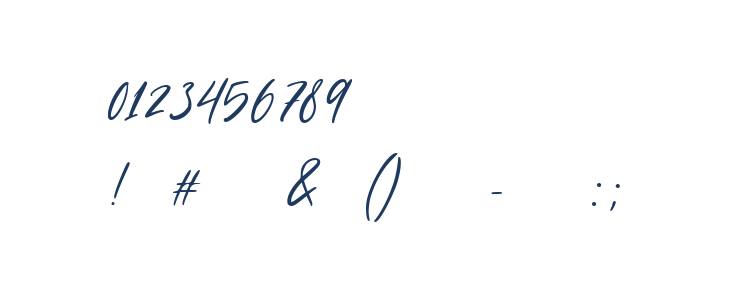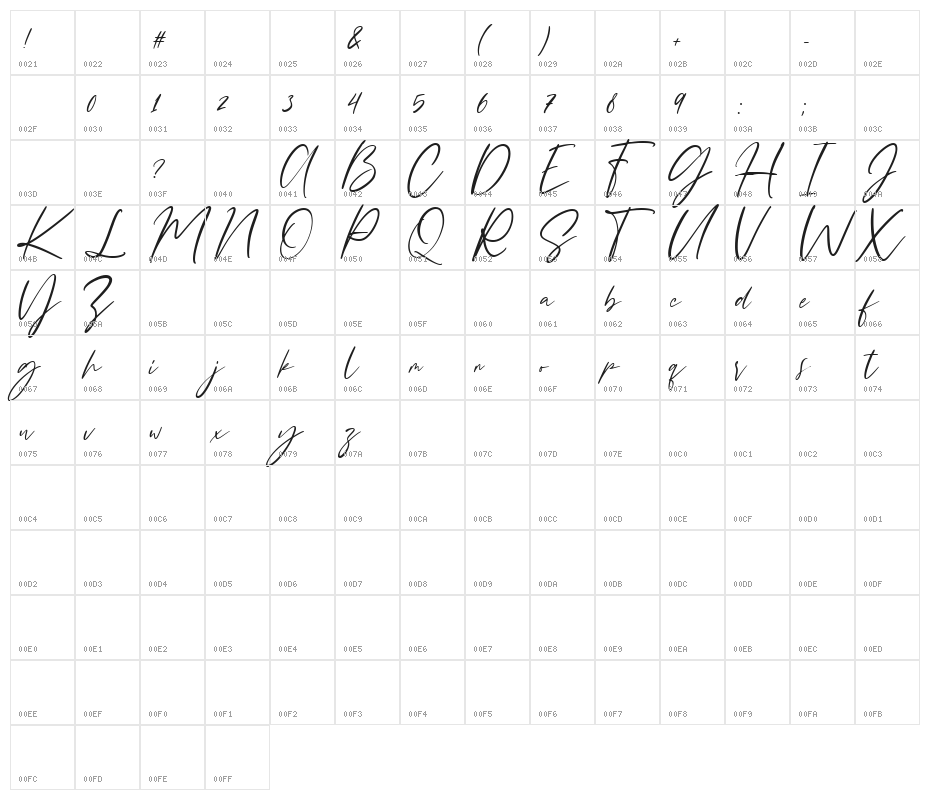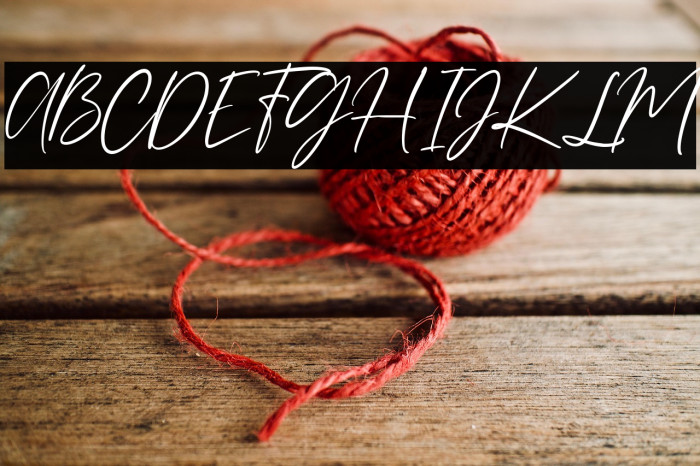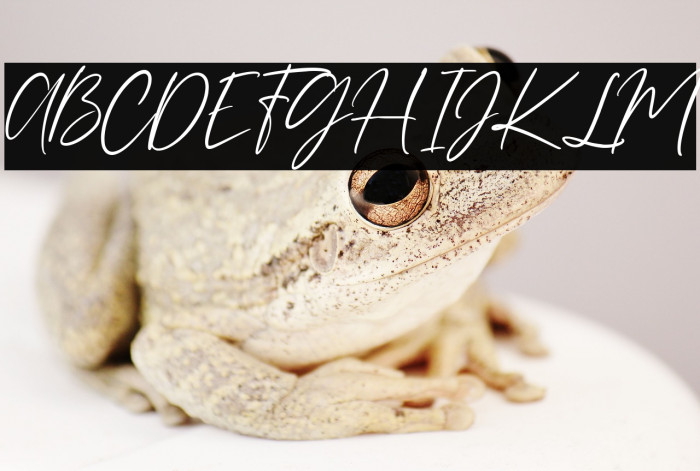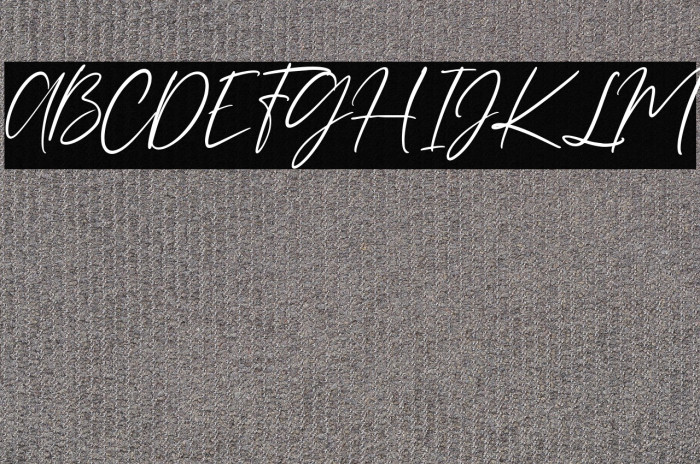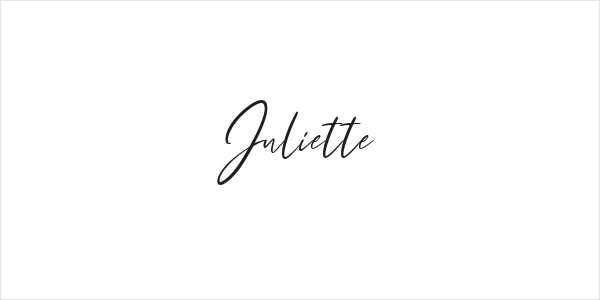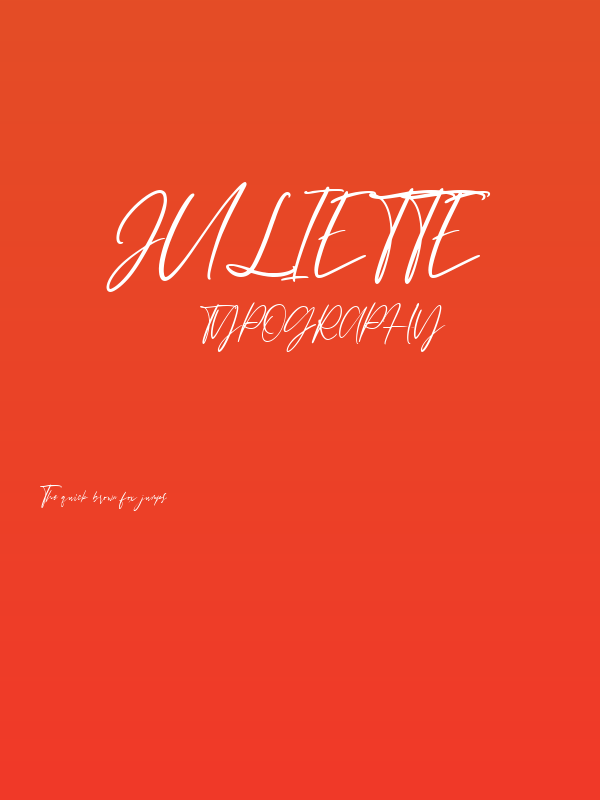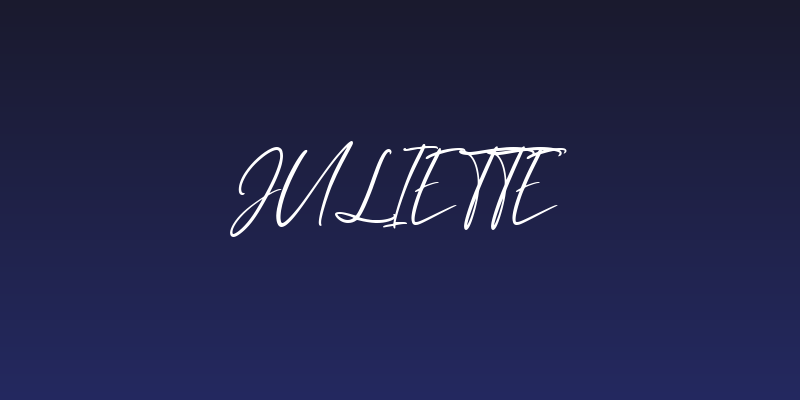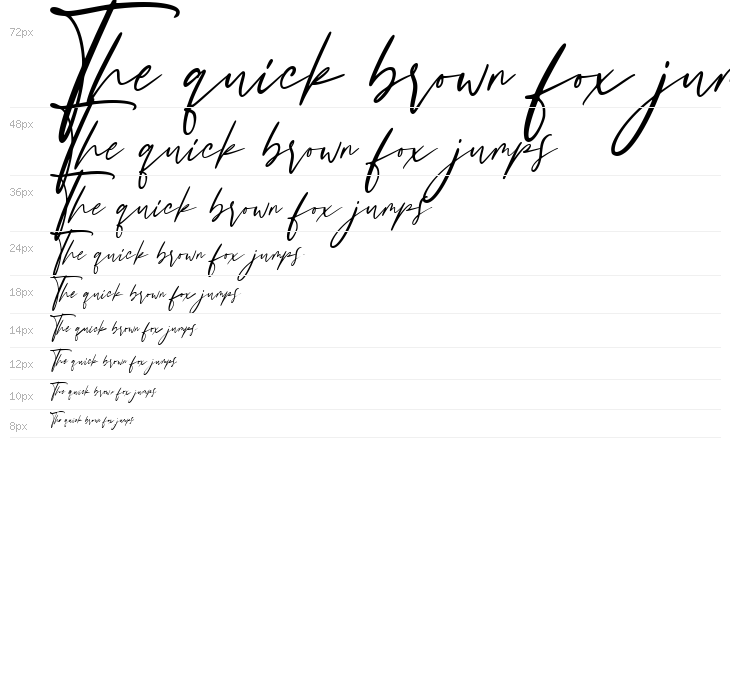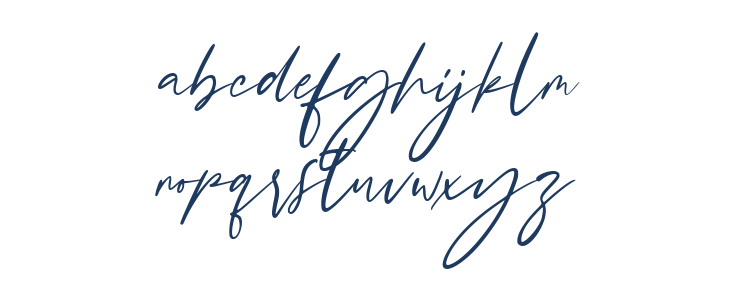
Juliette Font
Juliette Description
This font features an elegant and flowing script style, characterized by its smooth, cursive strokes and graceful curves. The letters are interconnected, creating a seamless and fluid appearance. The uppercase letters exhibit a sophisticated flair, while the lowercase letters maintain a consistent rhythm and balance. The numerals are stylish and complement the overall aesthetic. Special characters are crafted with the same attention to detail, enhancing the font's versatility. This font exudes a sense of elegance and refinement, making it suitable for a variety of design applications.
Overall StyleElegant
Use CaseLogos, Invitations, Decorative text
Proposed ProjectsIdeal for wedding invitations, greeting cards, branding, and elegant logos.